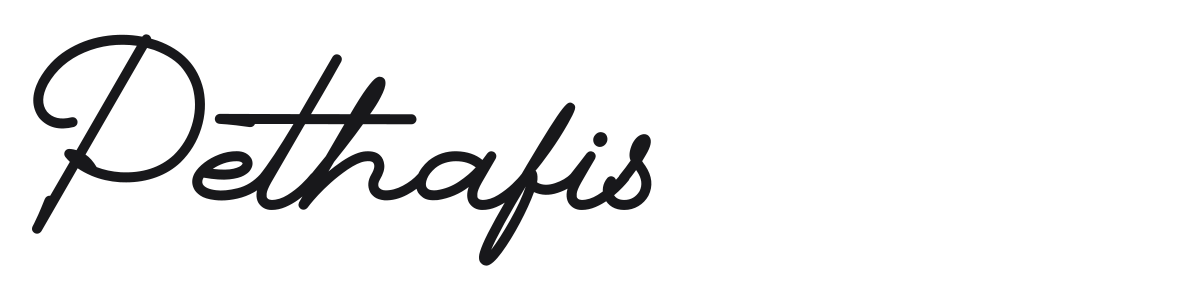
Pethafis
Pethafis is a bold monoline connected script from RGB Studio with sweeping loops and a consistently even stroke weight. Its flowing connections and overline accents on certain characters give it a festive, handcrafted quality that works well at large sizes. It suits branding, packaging, and seasonal graphics where warmth and energy are the goal.